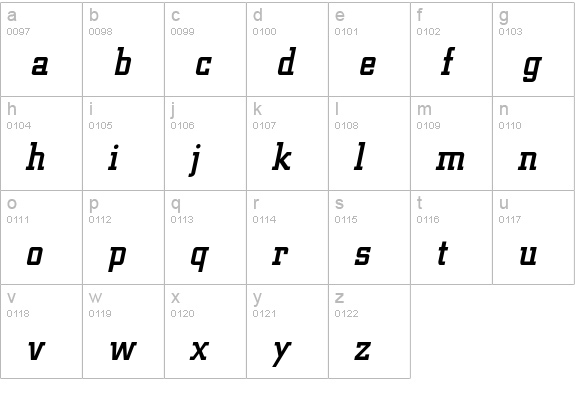
Civic fed kursiv Font Details
Civic Fed Kursiv font is a stylish and elegant typeface that exudes sophistication and professionalism. With its sleek lines and graceful curves, this font is perfect for adding a touch of refinement to any project. Whether you're designing a logo, creating a brochure, or working on a website, Civic Fed Kursiv font will elevate your design to the next level. What's even better is that Civic Fed Kursiv font is completely free to download at FontsMarket.com. You can easily access this gorgeous font and use it in your projects without any cost. Don't miss out on the opportunity to enhance your designs with the beauty of Civic Fed Kursiv font - download it now and see the difference it can make!